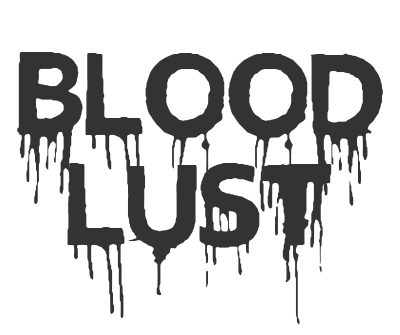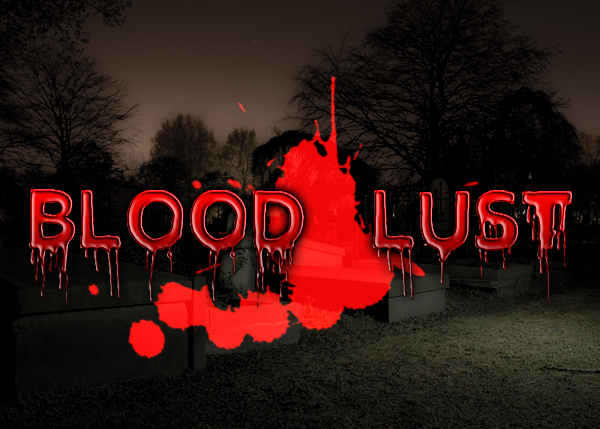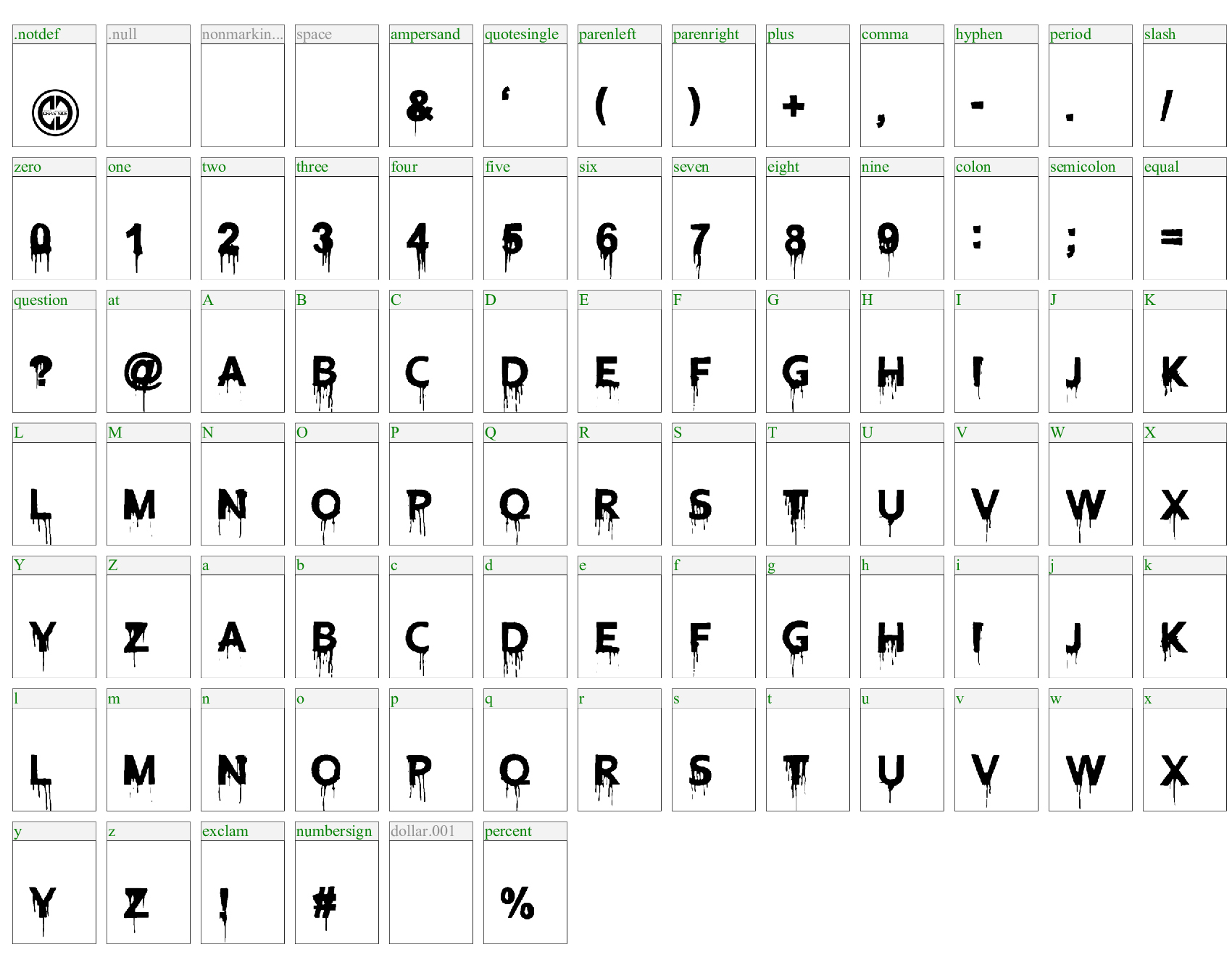
Blood Lust is a creepy and frightening horror font that is perfect for creating eerie and suspenseful designs. This font features irregular and jagged letterforms that give it a disturbed and unsettling feel, while the blood dripping effect adds a touch of gore and violence. The font is designed to look like it has been written in blood, making it ideal for use in horror-themed projects such as movie posters, book covers, or Halloween graphics. The font's creepy and macabre style is sure to grab the attention of anyone who sees it, making it a great choice for designers looking to add a touch of terror to their work. Whether you're creating a horror movie poster or a spooky invitation, Blood Lust is the perfect font to add a touch of fear and gore to your design.
Uppercase: Yes
Lowercase: Yes, same as uppercase
Numbers: Yes
Symbols and Punctuation: Yes, limited.
Accents: No
Theme: Horror